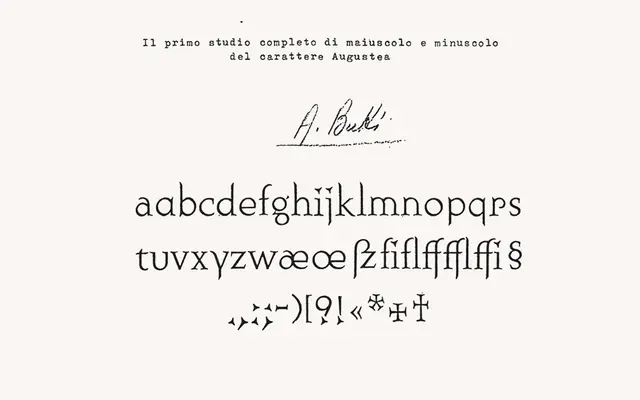
Aguzzo
Displaay Type Foundry · Alessandro Butti · 1951
A digital revival of Augustea, the 1951 Fonderie Nebiolo display serif drawn by Alessandro Butti, reinterpreted from 36pt lead hotmetal forms.
Based on Alessandro Butti's Augustea, originally cut for Fonderie Nebiolo in 1951, this revival draws directly from 36pt lead hotmetal sources. The typeface sits within the glyphic serif tradition, with sharply incised strokes that evoke inscriptional Roman letterforms. Well suited to display and headline use where classical authority and material texture are desirable.
Aguzzo is rooted in Augustea, a display serif from Fonderie Nebiolo with sharp, incised letterforms characteristic of glyphic or lapidary serif traditions, drawing on inscriptional Roman letter forms.